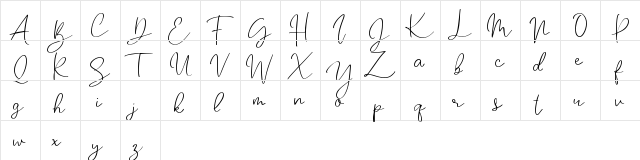
Katalia Regular
Design Context for Katalia Typeface
Katalia is a composed and adaptable typeface that performs quietly and consistently across a wide range of design contexts.
Pro Tip: Pair Katalia with a font of contrasting weight or personality to build a more expressive typographic hierarchy.